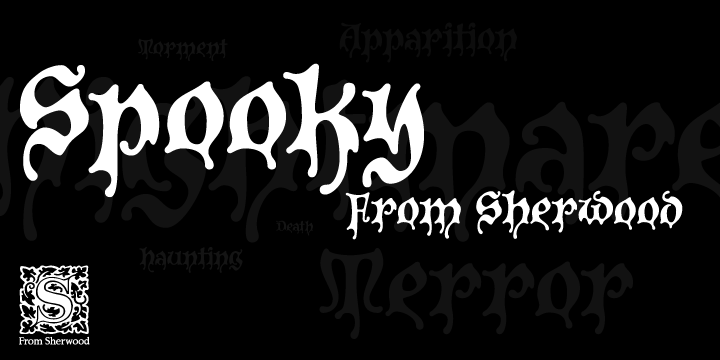
P22 Spooky
Designed by: Ted Staunton
Design owned by: Sherwood Type
P22 Spooky
Spooky is a chilling font that is evocative of the type used in horror films and posters.
It’s creepy, it’s kooky...it’s spooky. Perfect for invitations, banners or other ghastly uses.